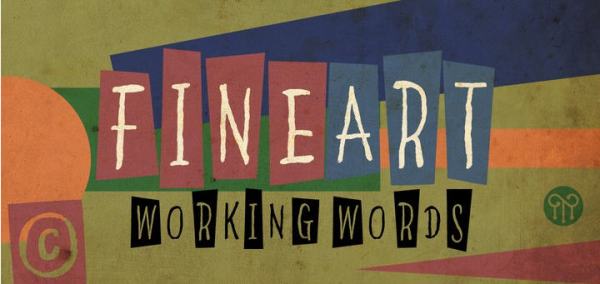
Font Frenzy: Fine Art On Sale!
Fine Art is a nice casual font with a playful feature — the caps are in a solid block of color in contrast to the non-capital letters. You’ll see an example below. This gives great opportunity to be really creative with your colors when designing cards for children, for example. Currently, the font is only $5, so get it while it’s on sale!
fineart working words